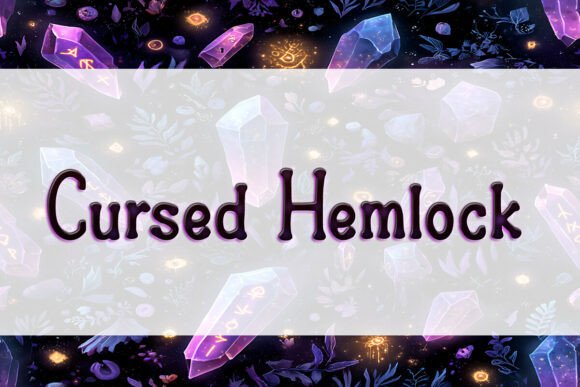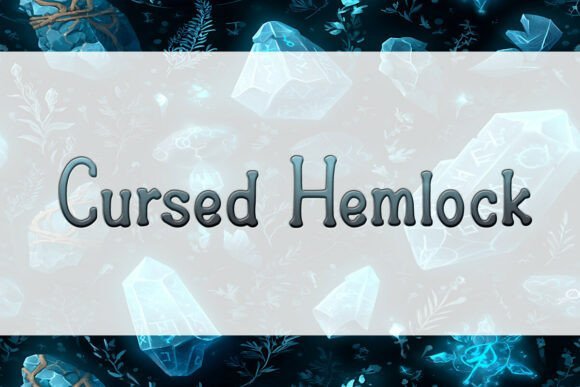
Introduction to Cursed Hemlock Font
Introducing β€˜Cursed Hemlock’, a versatile font that dynamically elevates your designs.
Seamlessly integrating into fashion such as on shirts, or beautifully adorning playful stickers; this typeface is remarkably distinct yet adapts effortlessly Its quintessential charm makes it resonant for branding, or instantly spirits up the pages of magazines.
Key Features of Cursed Hemlock Font
Why Choose Cursed Hemlock Font?
Cursed Hemlock Font offers exceptional quality and versatility, making it a valuable addition to your design toolkit. Whether you’re creating for personal projects or commercial use, Cursed Hemlock Font delivers professional results.